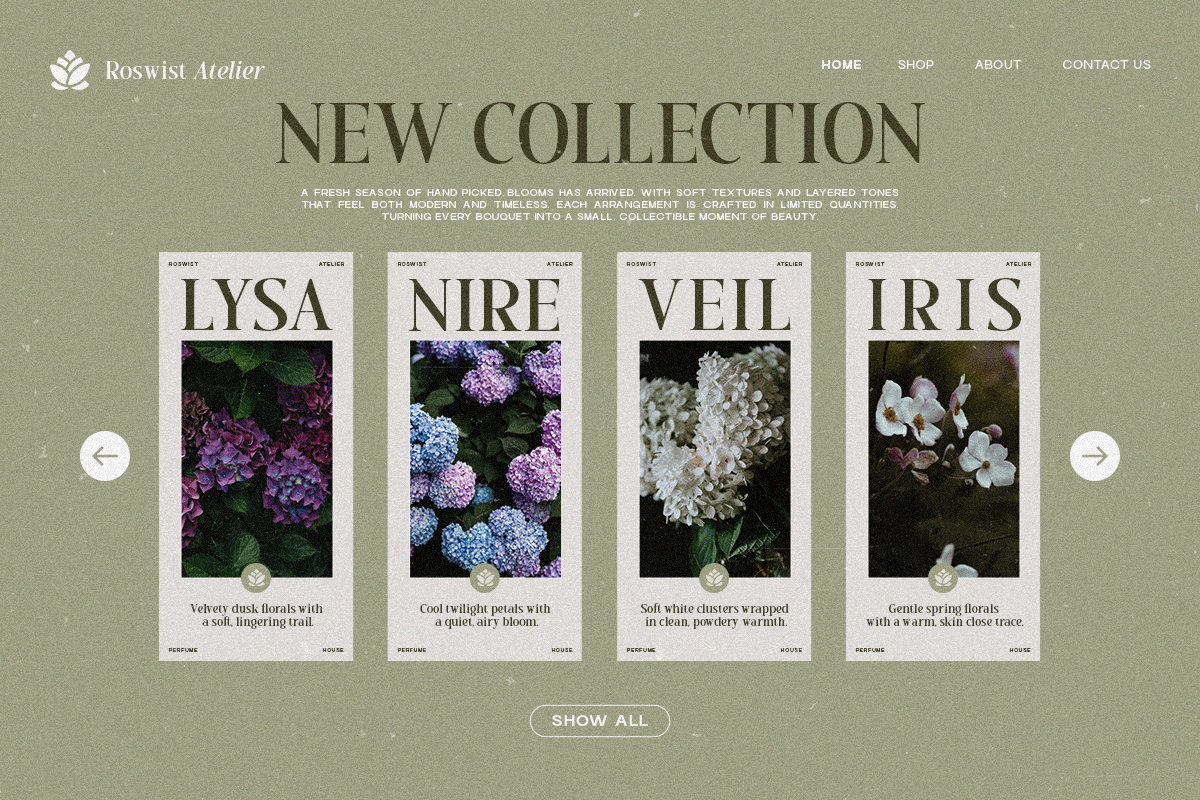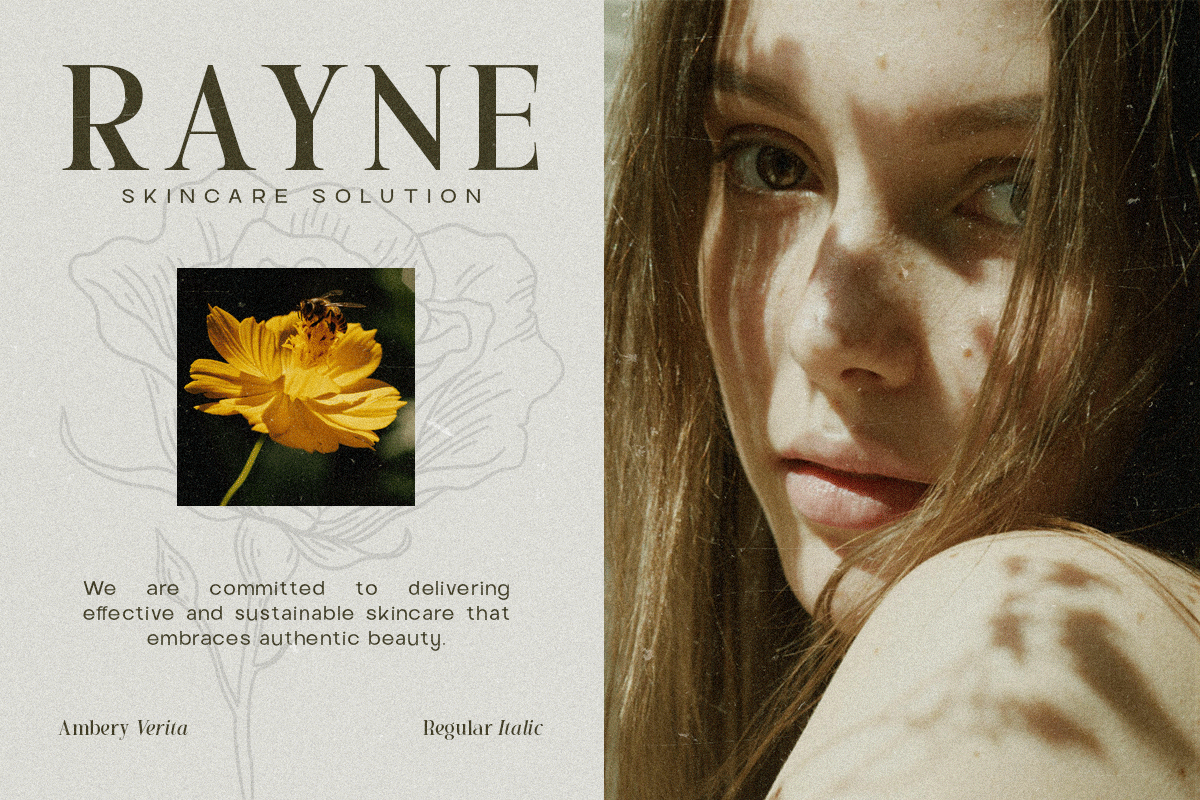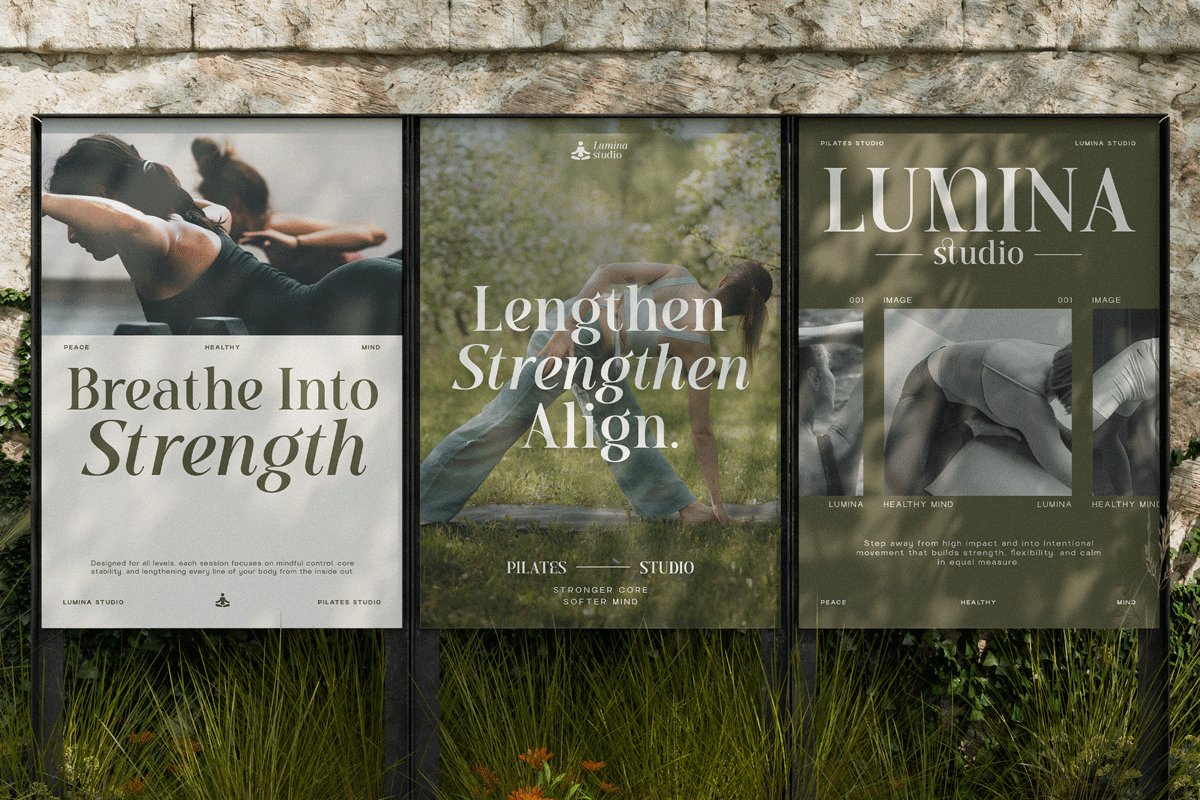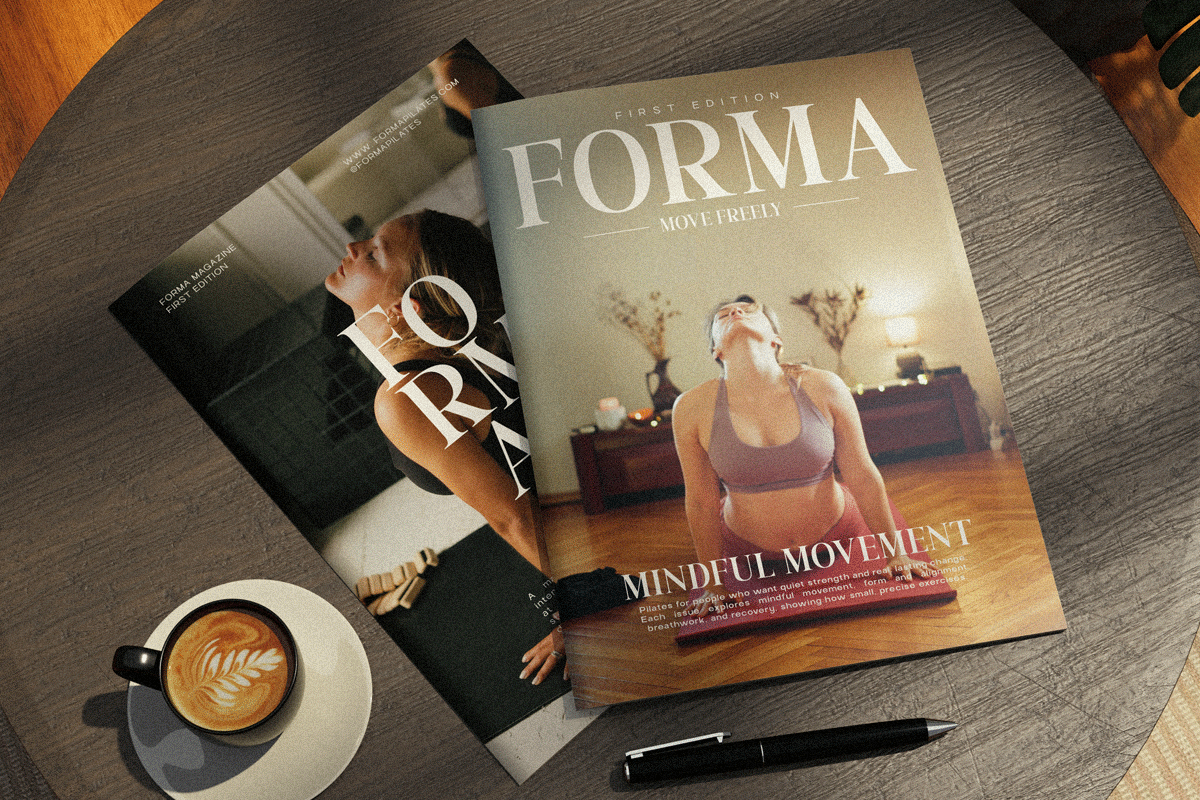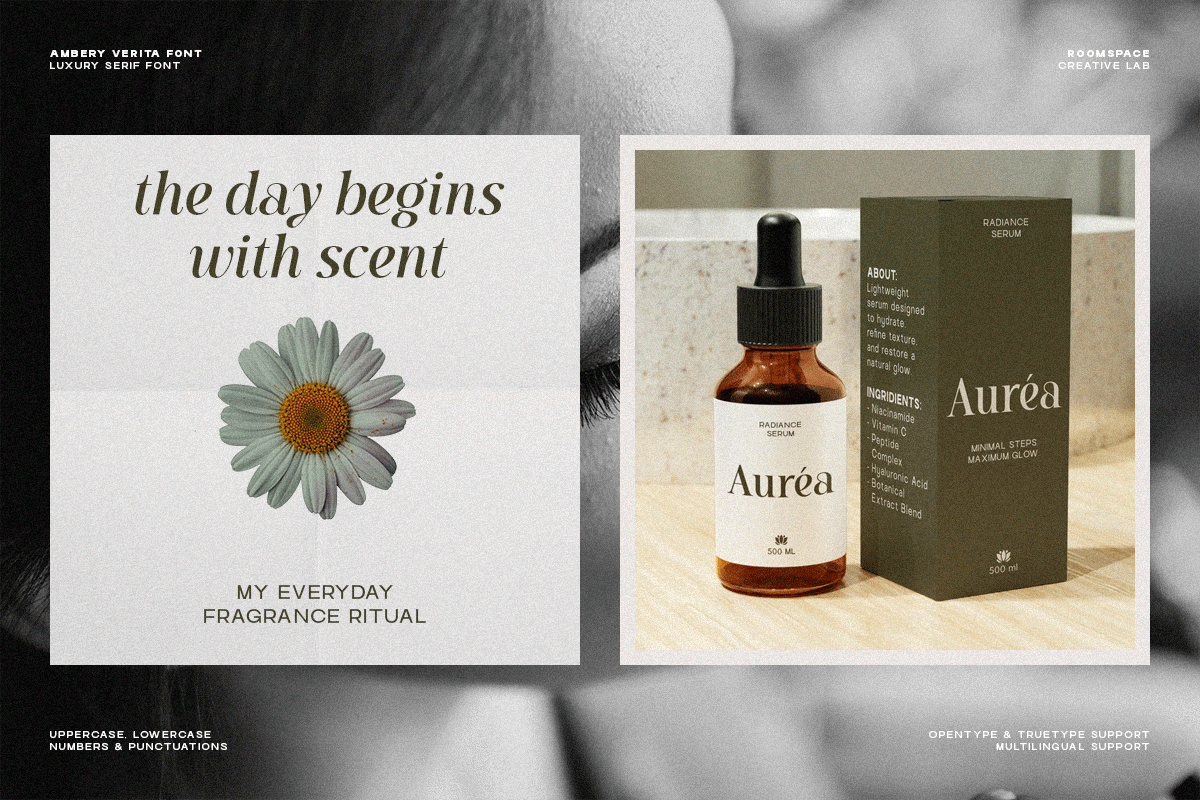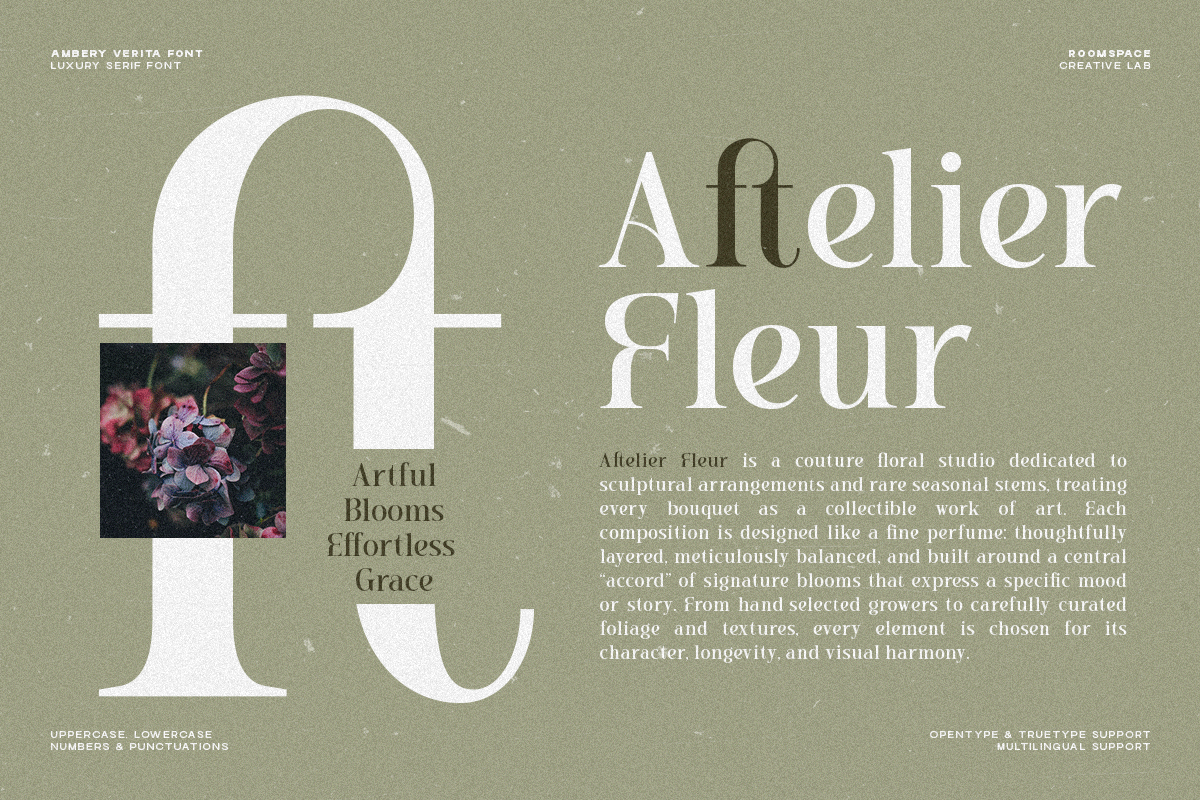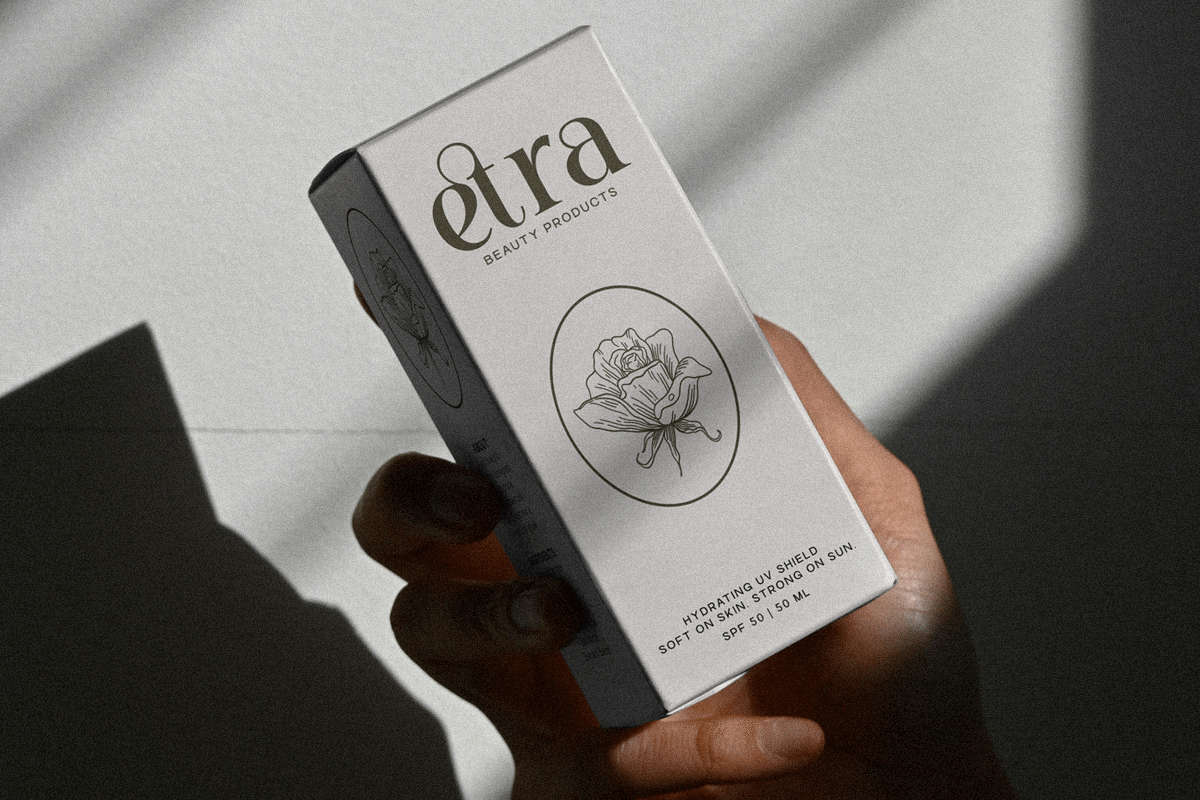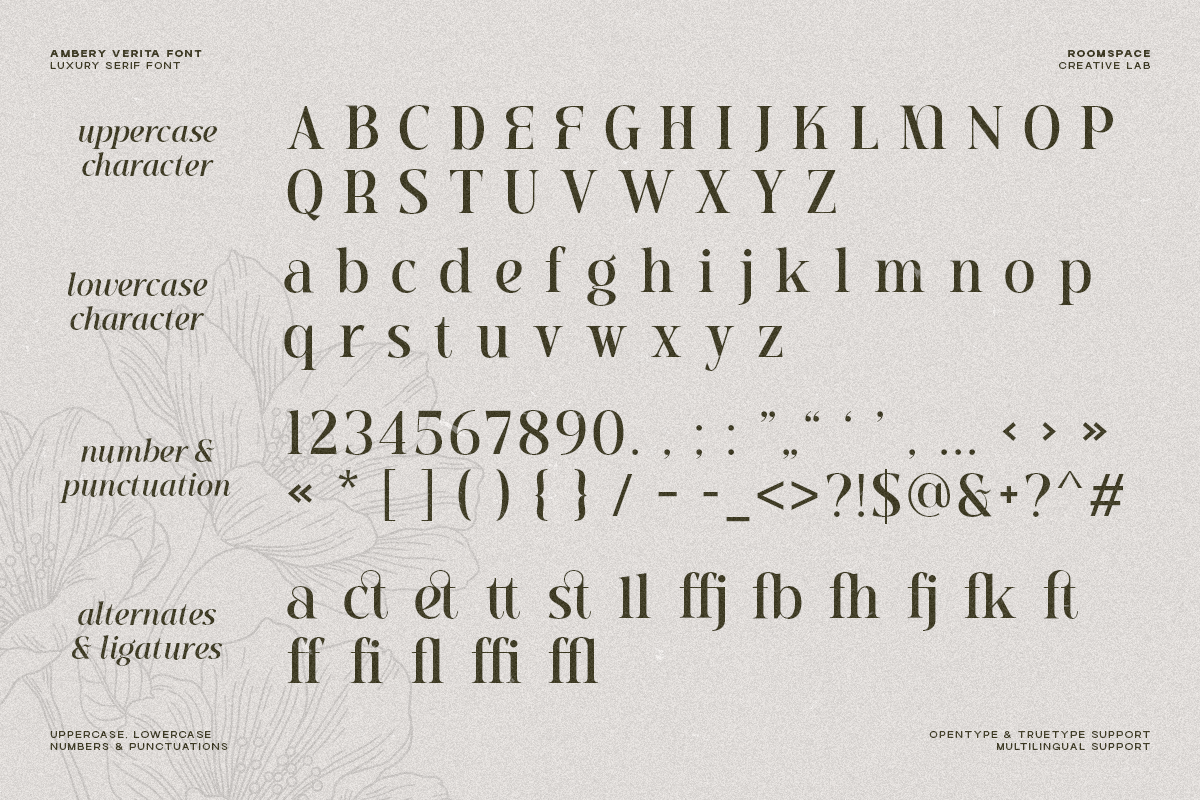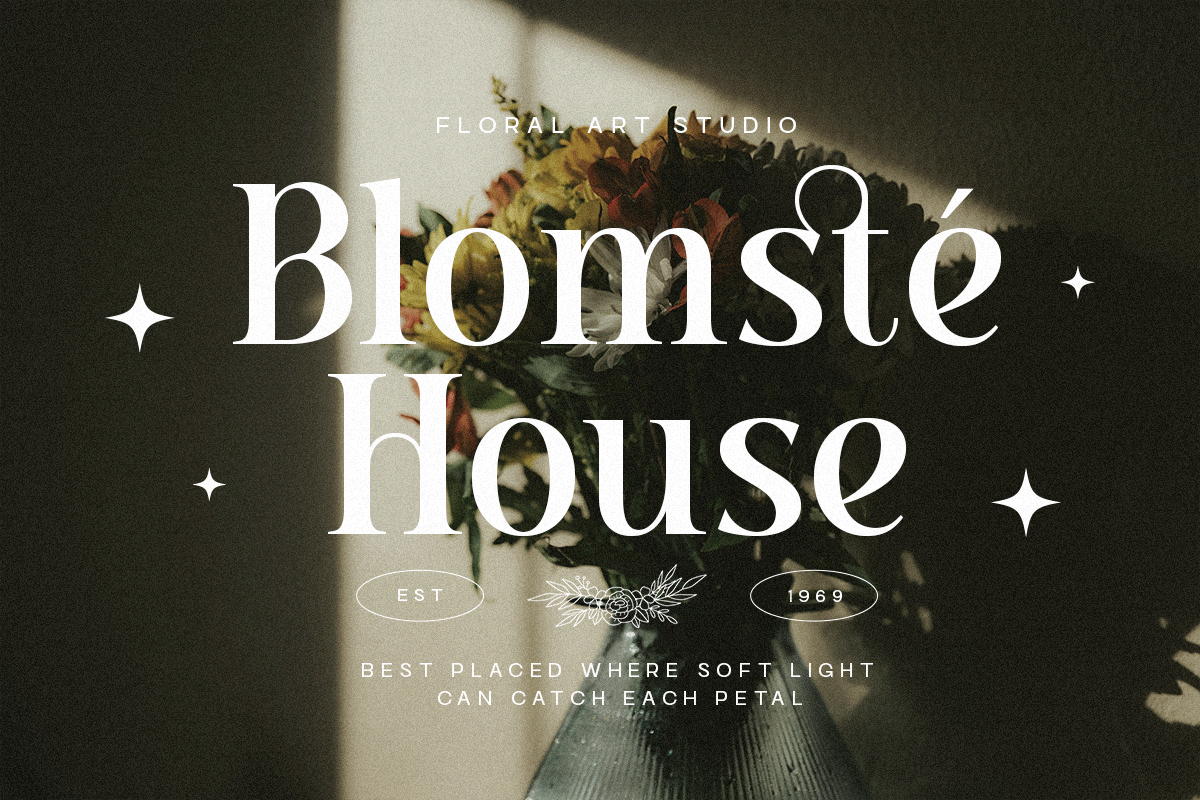
Ambery Verita – Elegant Modern Serif
A romantic high-contrast serif made for luxury branding, weddings, and editorial design. Say hello to Ambery Verita, an elegant serif typeface crafted for designers who love refined curves and expressive contrast. With Regular and Italic styles, Ambery Verita brings timeless sophistication to branding, wedding stationery, magazines, and modern lifestyle visuals. Its smooth flow and editorial elegance make it perfect for designers seeking a stylish serif that feels both classic and contemporary.
- 2 Styles (Regular & Italic)
- Elegant high-contrast serif
Perfect For : Luxury branding, wedding invitations, fashion lookbooks, magazine titles, packaging, quotes, and social media posts.